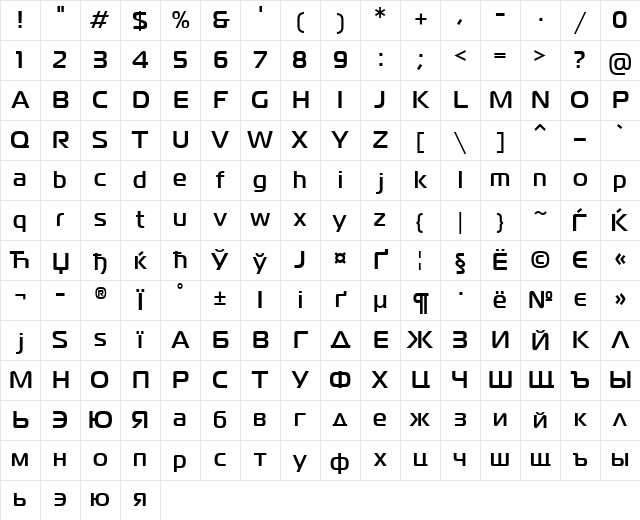
MagistralC Regular
MagistralC Family
MagistralC Regular
Design Context for MagistralC
MagistralC is a composed and adaptable typeface that performs quietly and consistently across a wide range of design contexts.